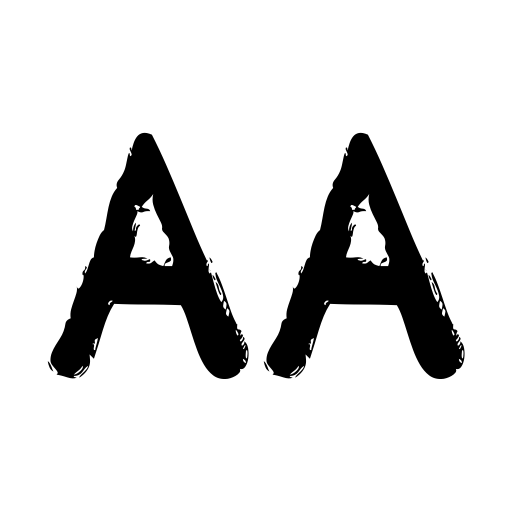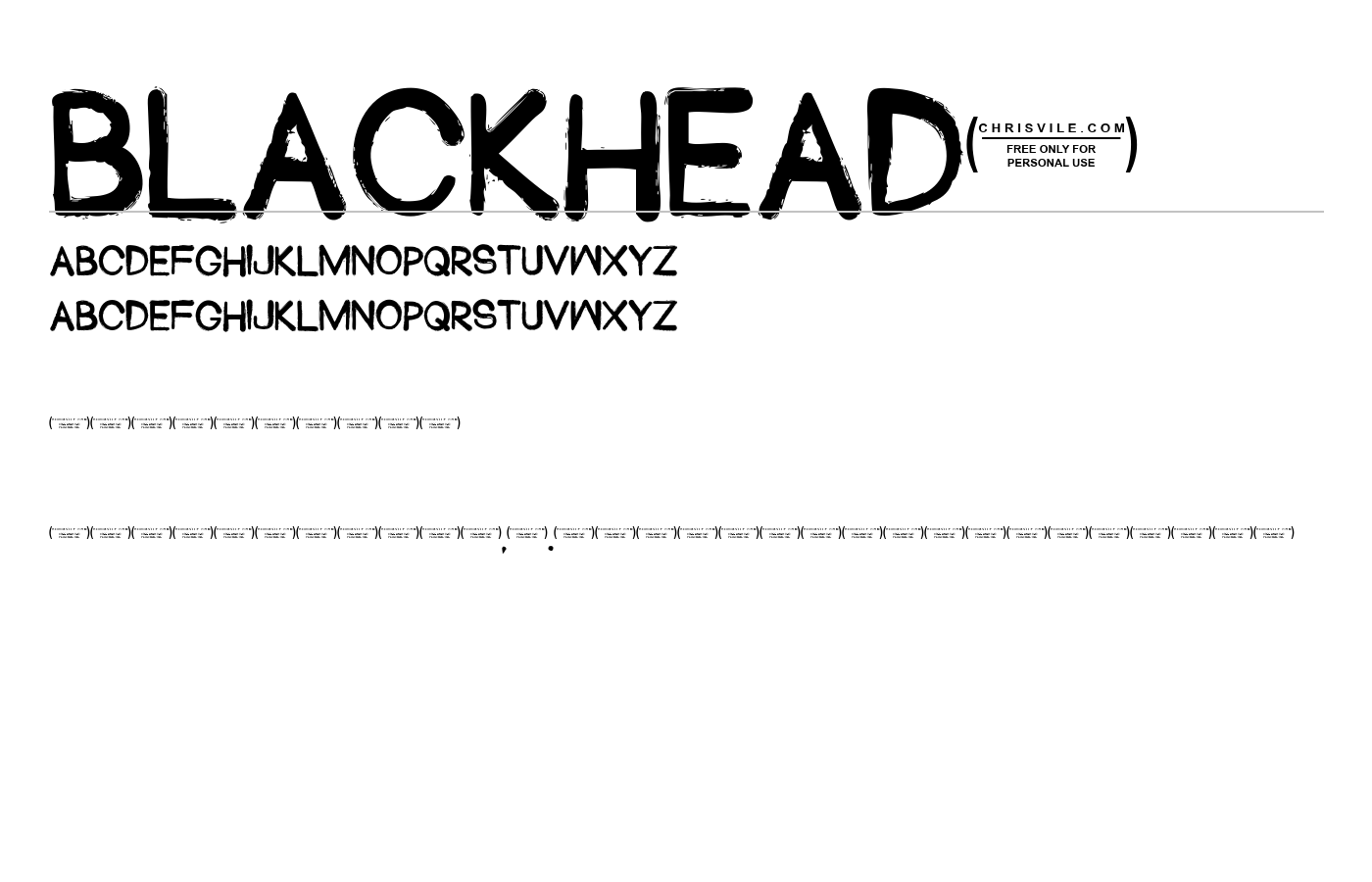
Blackhead is a bold, hand-drawn sans serif font with a rough, textured style that gives it a casual, slightly grungy feel. Its uneven strokes and playful imperfect edges make it ideal for creative projects that want an informal, handcrafted look. This font works well for posters, logos, or any design needing a distinctive, energetic personality.
Blackhead Font
About Blackhead Font